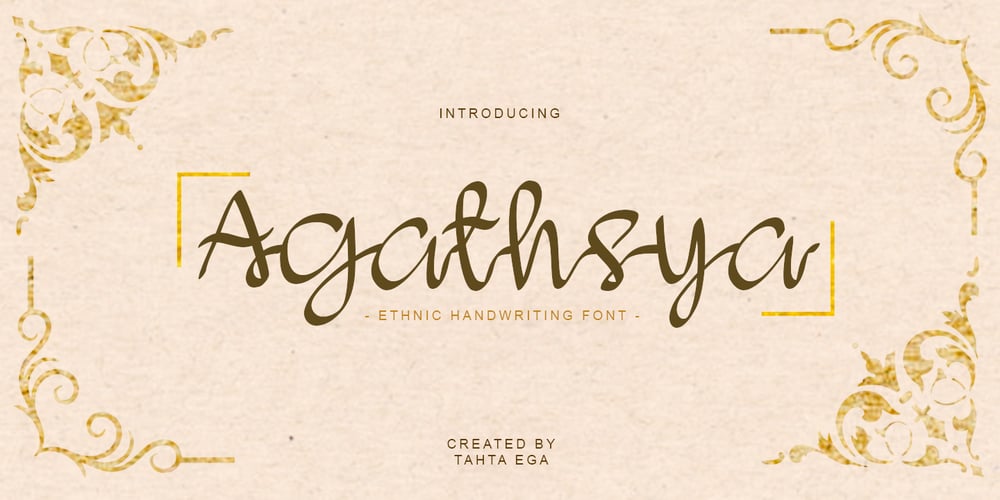
Agathsya Font Family was designed by Tahta Ega and published by Egha’s Studio. Agathsya contains 1 styles and family package options. A font inspired by Javanese script that has ethnic characters. And this font is also named after the name of my new child born 18 September 2020, whose name is Ganya Agathsya.This font is suitable for logos and some ethnic products. And can be tailored to a variety of needs.Thank youTahta Ega